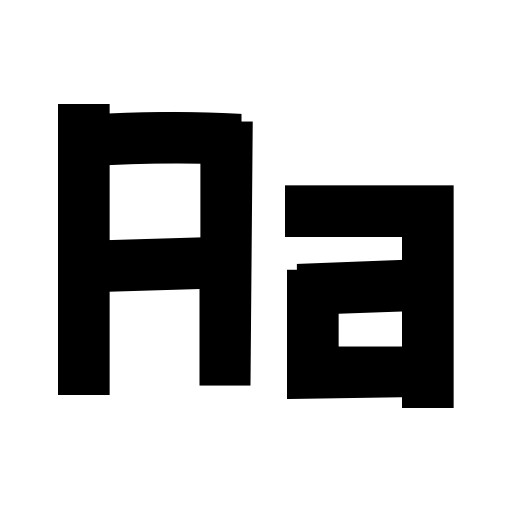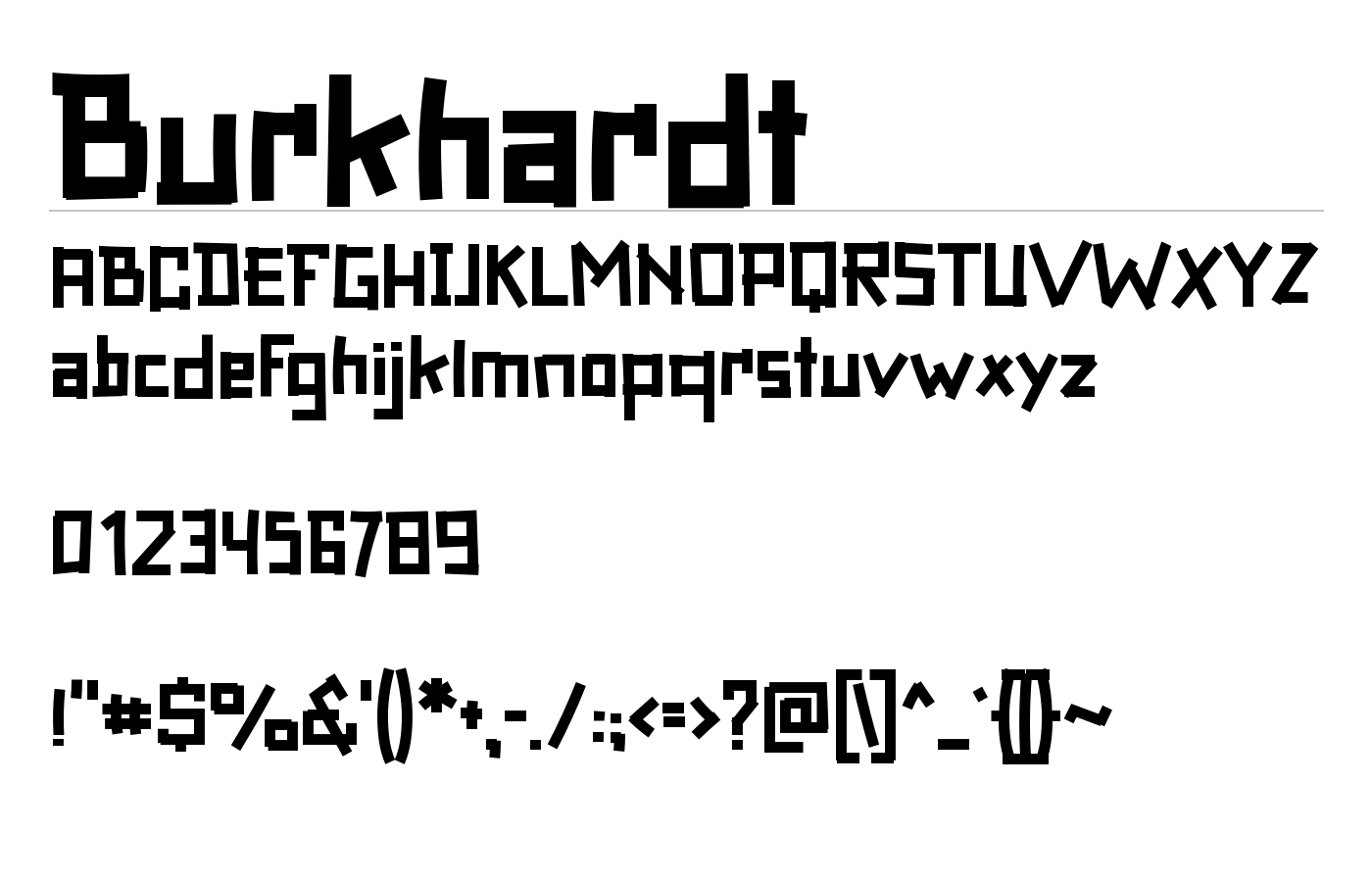
Burkhardt is a bold, geometric sans serif font with a quirky and playful character, featuring uneven stroke widths and slightly irregular angles that give it a handcrafted, artistic feel. Its upright, blocky letterforms and casual irregularities make it ideal for creative headlines, posters, and branding projects that want to convey originality and a fun, informal vibe. This font works especially well in designs that aim for a modern yet approachable look with a touch of personality.
Burkhardt Font
About Burkhardt Font